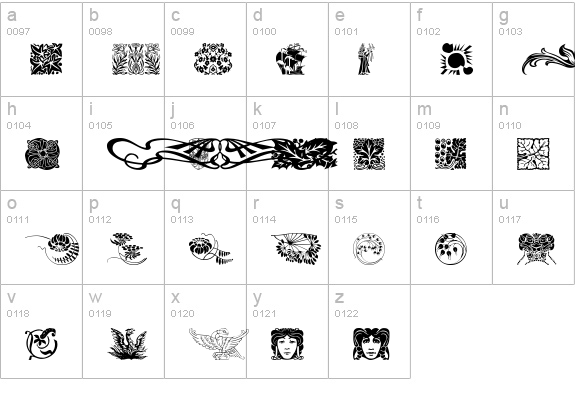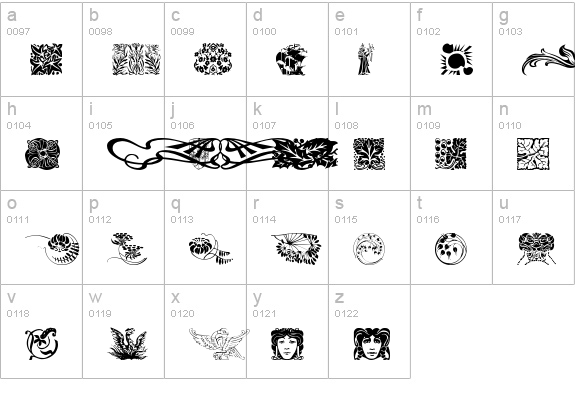
Ornamental Elements font is a stunning display typeface that exudes elegance and sophistication. With intricate details and ornate embellishments, this font is perfect for adding a touch of luxury to your design projects. Whether you're creating wedding invitations, branding materials, or decorative elements, Ornamental Elements font will elevate your work to the next level. The beauty of Ornamental Elements font lies in its versatility - it can be used for both traditional and modern designs, adding a timeless charm to any project. The delicate swirls and curves of this font will captivate your audience and leave a lasting impression. Best of all, Ornamental Elements font is available for free download at FontsMarket.com. So why wait? Add a touch of sophistication to your designs today with Ornamental Elements font.